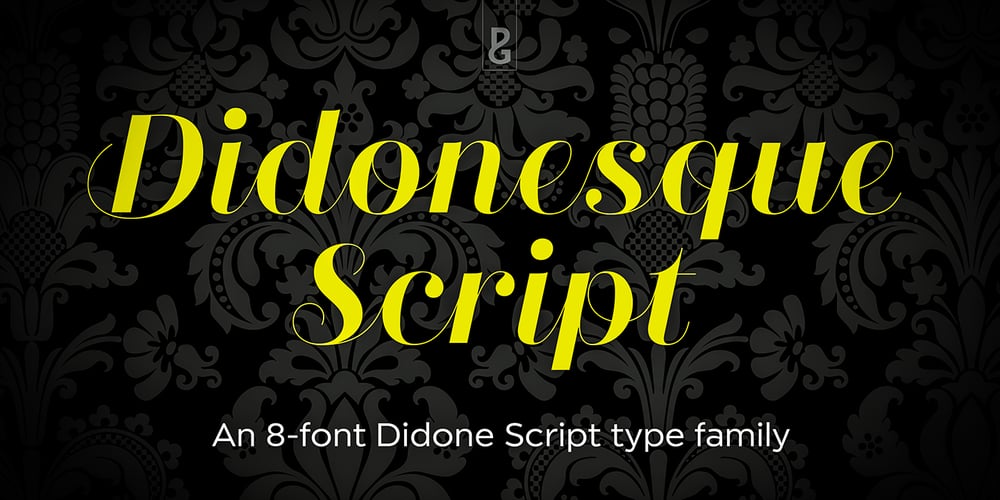
Didonesque Script
Didonesque Script font
Didonesque Script Font Family was designed by Paulo Goode and published by Monotype. Didonesque Script contains 8 styles and family package options. Didonesque Script has the flair of a script typeface, yet retains the rigid structure and incline of its cousins in the Didonesque family. This makes for an interesting approach – the flamboyancy of this script is restrained which resonates a distinctly reserved and formal tone. This typeface is perfect for formal occasions, with its main intent for use in short runs of text, headlines, branding and logo applications. Open Type features are utilized to good effect – positional forms, contextual alternates, ligatures, stylistic alternates, and old style figures all add value to Didonesque Script. There are four weights, from delicate to voluptuous (Regular, Medium, Bold, and Black), which are replicated in “Display” versions – these are designed for use at larger point sizes. Key features: • 4 weights in two styles – Regular and Display • Positional Forms (when activated) ensure the correct glyphs appear in context as you type • Full European character set (Latin only) • 550+ glyphs per font.